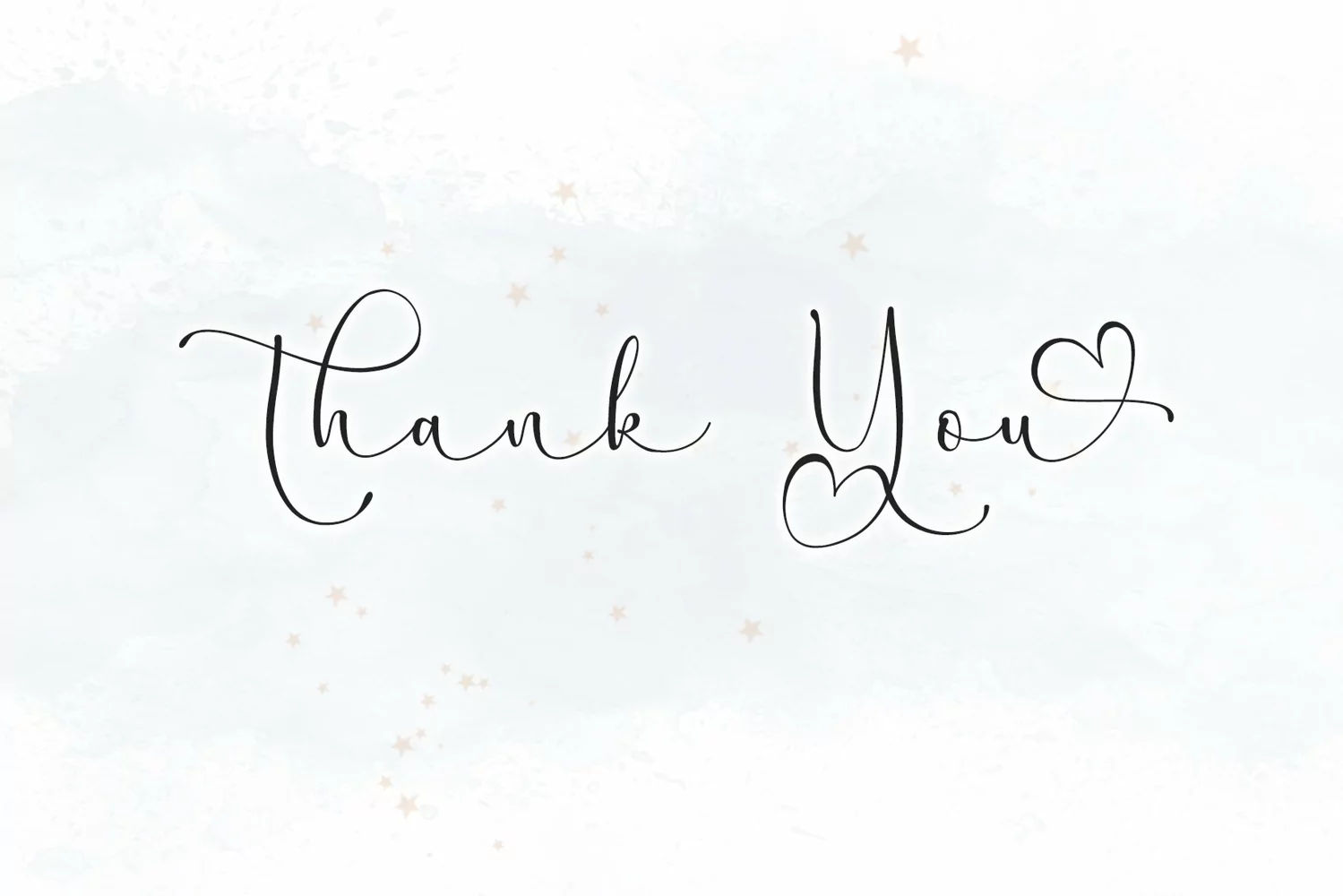
Beautiful Handwritten
Marinthea is a stylish and incredibly elegant script font. It looks stunning on wedding invitations, thank you cards, quotes, greeting cards, logos, business cards and every other design which needs a handwritten touch.